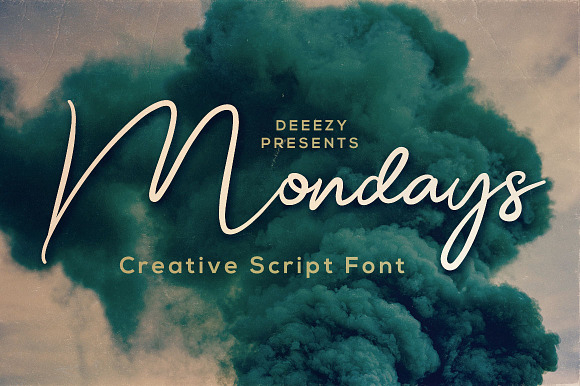
Mondays Script Font
Clean and fancy style script font for your new projects. With multi language support and lot of stylistic alternates & swashes.
- With multi language support and lot of stylistic alternates & swashes.
Why Mondays Script Font is worth a look
Mondays Script Font by Deeezy fits naturally into Branding, posters, packaging, typography.